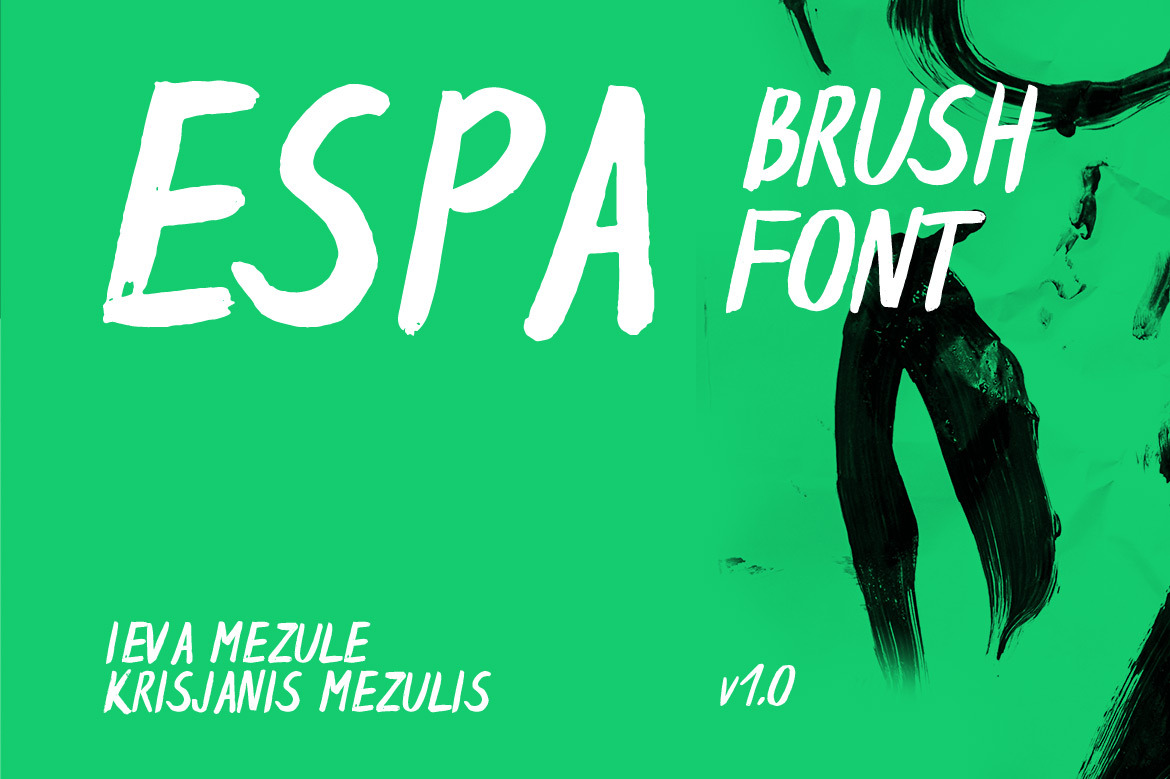
Espa Brush Font
Espa is a free brush font made by Ieva and Krisjanis Mezulis. It features a brush made feel and look. The font suits best big headlines and gives them a personal touch.